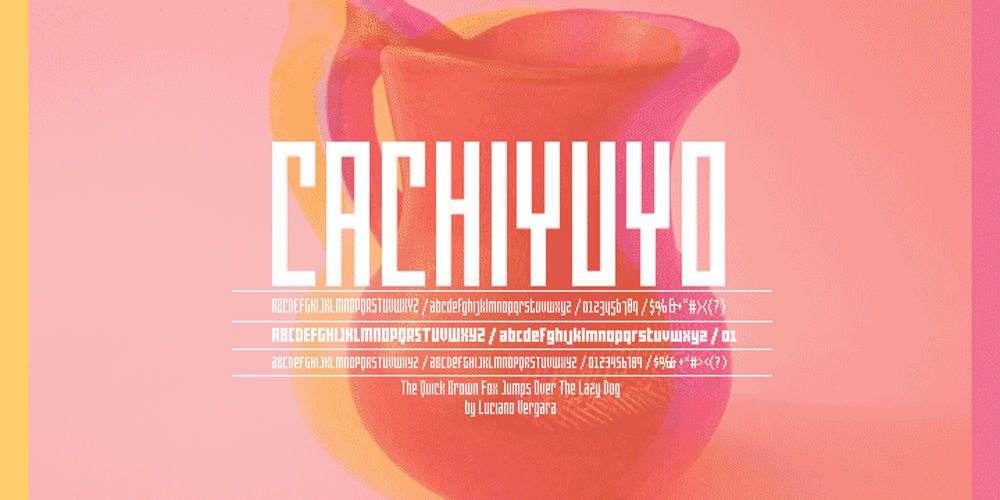
Cachiyuyo Font Family was designed by Luciano Vergara and published by MendozaVergara. Cachiyuyo contains 3 styles and family package options. Cachiyuyo is a bitmap font designed for screen titles and to be printed, has a large x height, is very tight and orthogonal. Cachiyuyo is meant for short texts and simple layouts. Is optimized for screen at 8px, 16px, 32px etc.